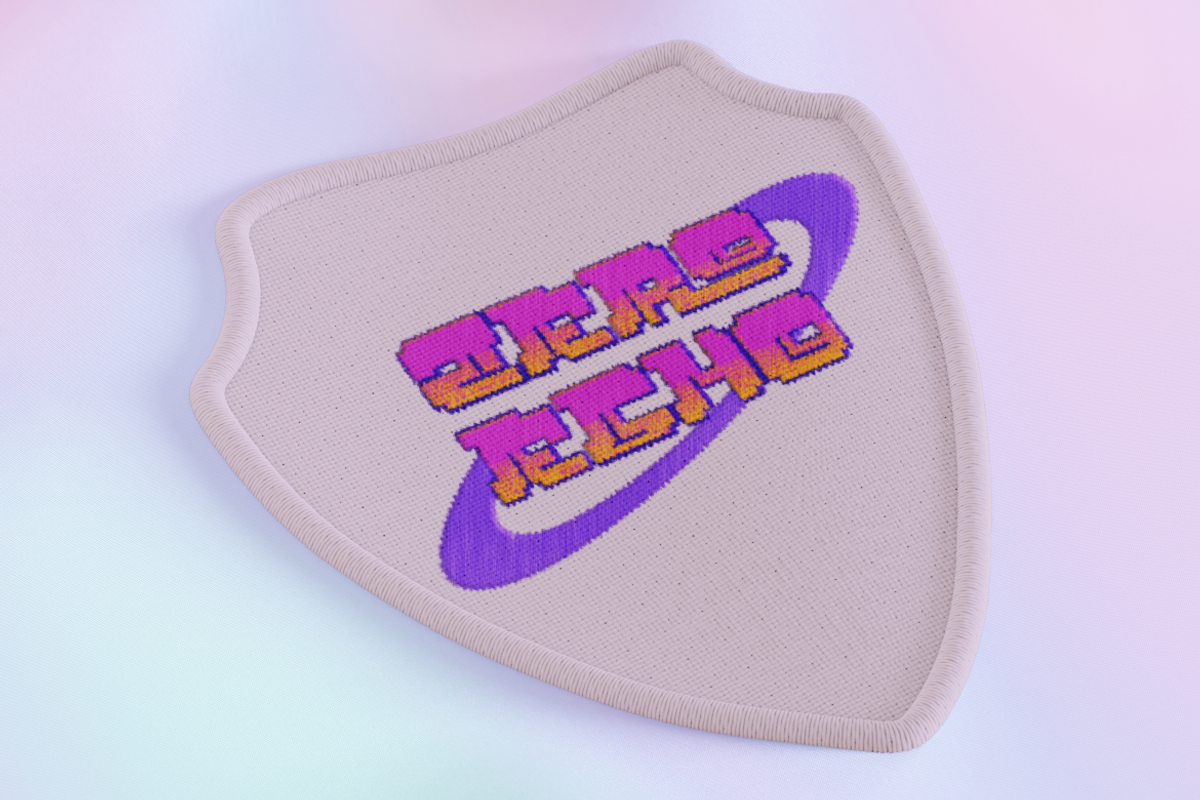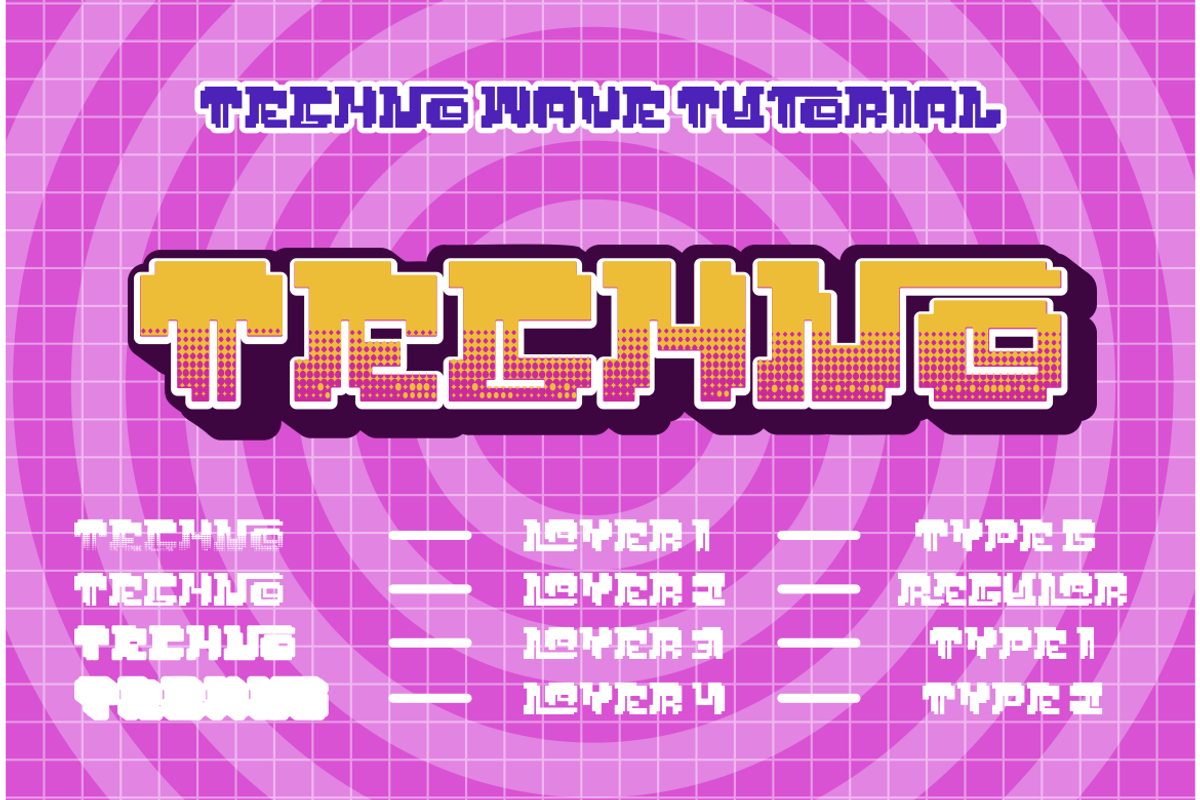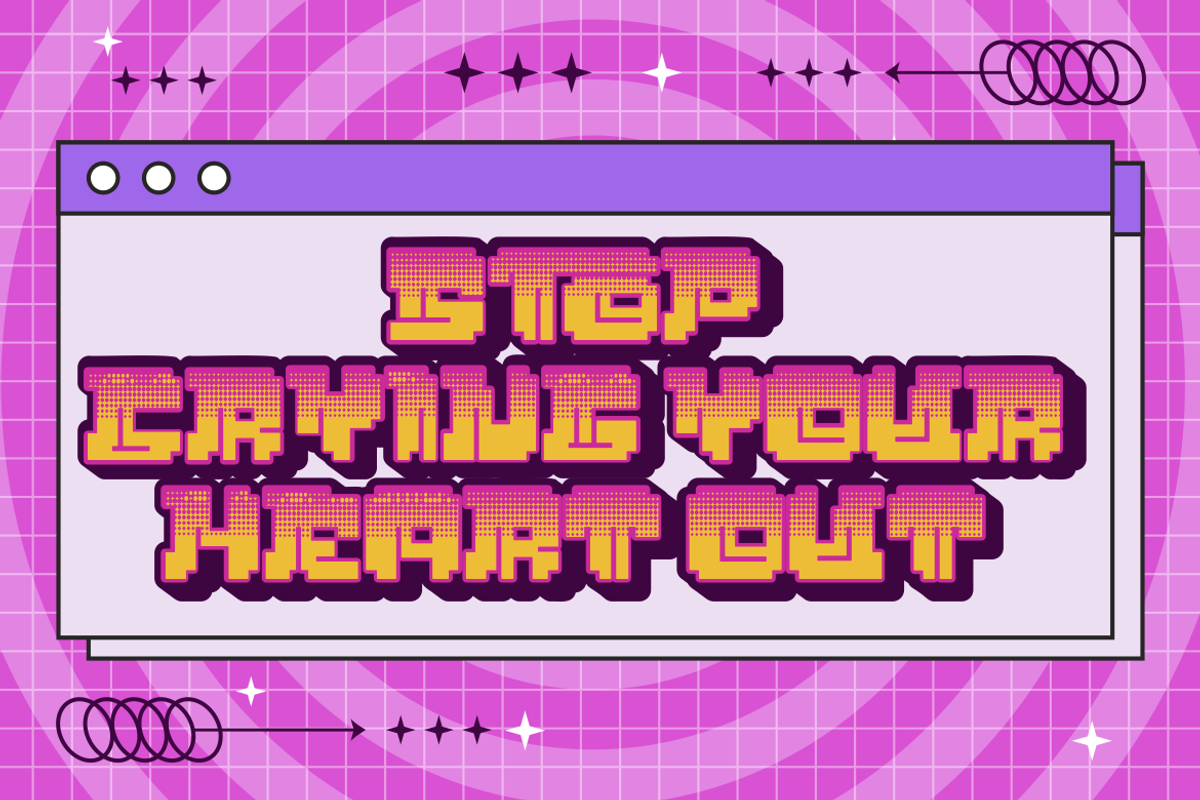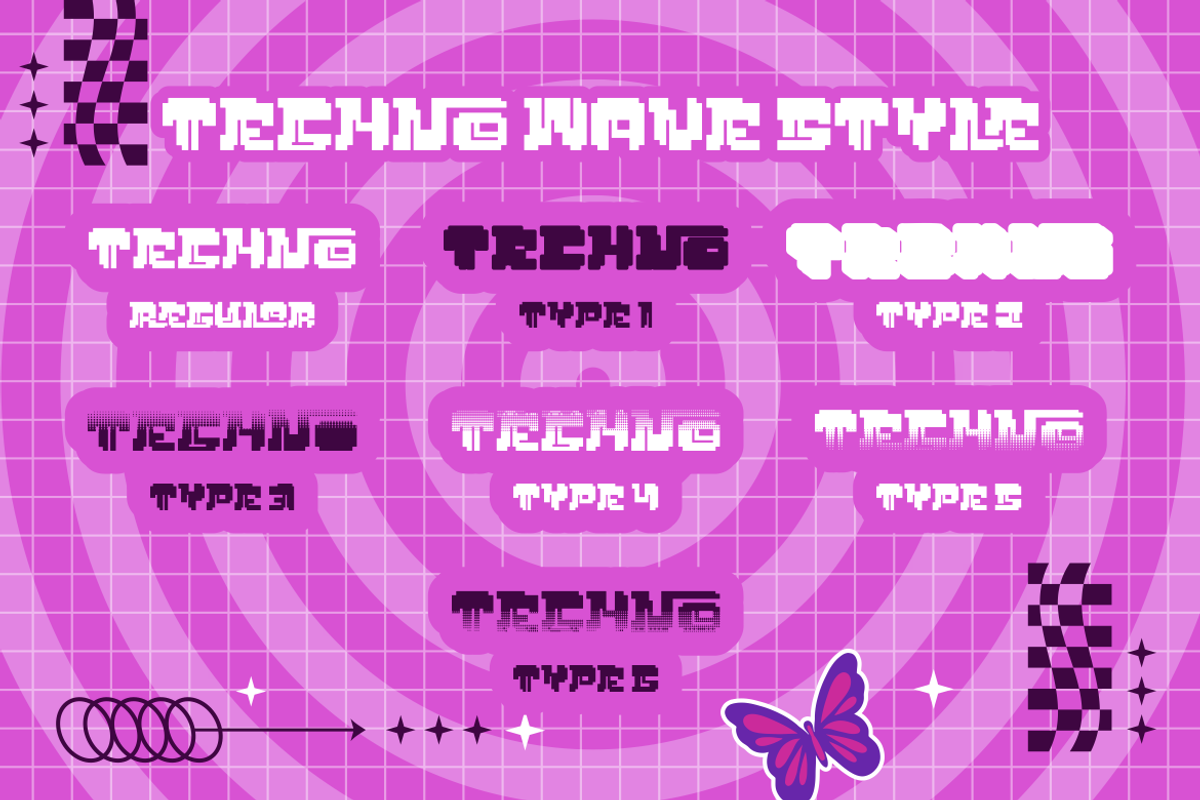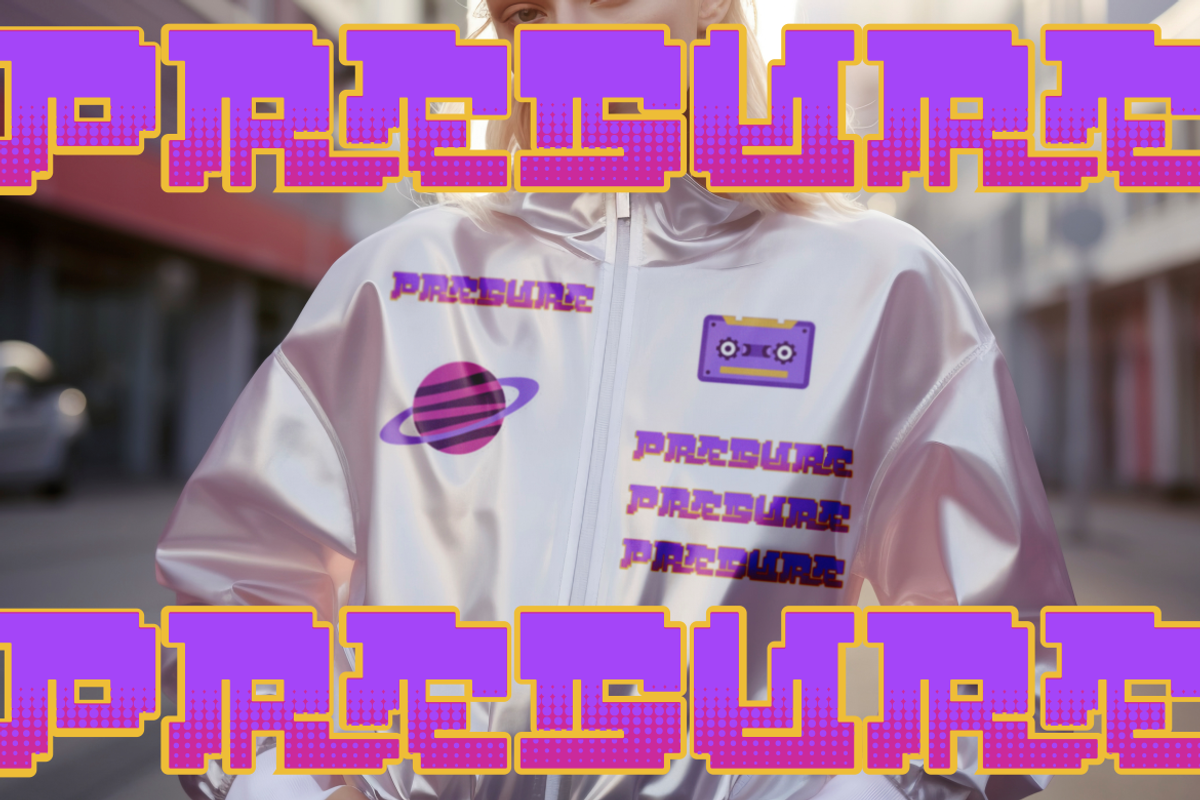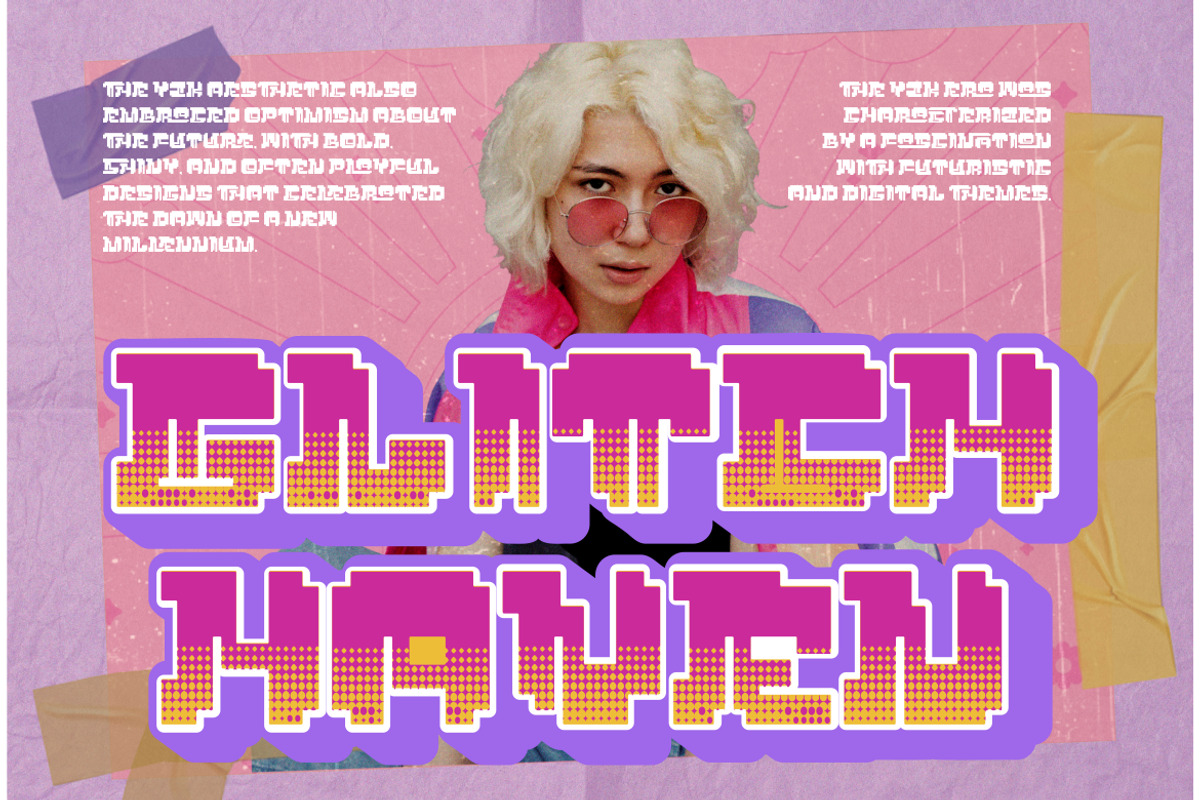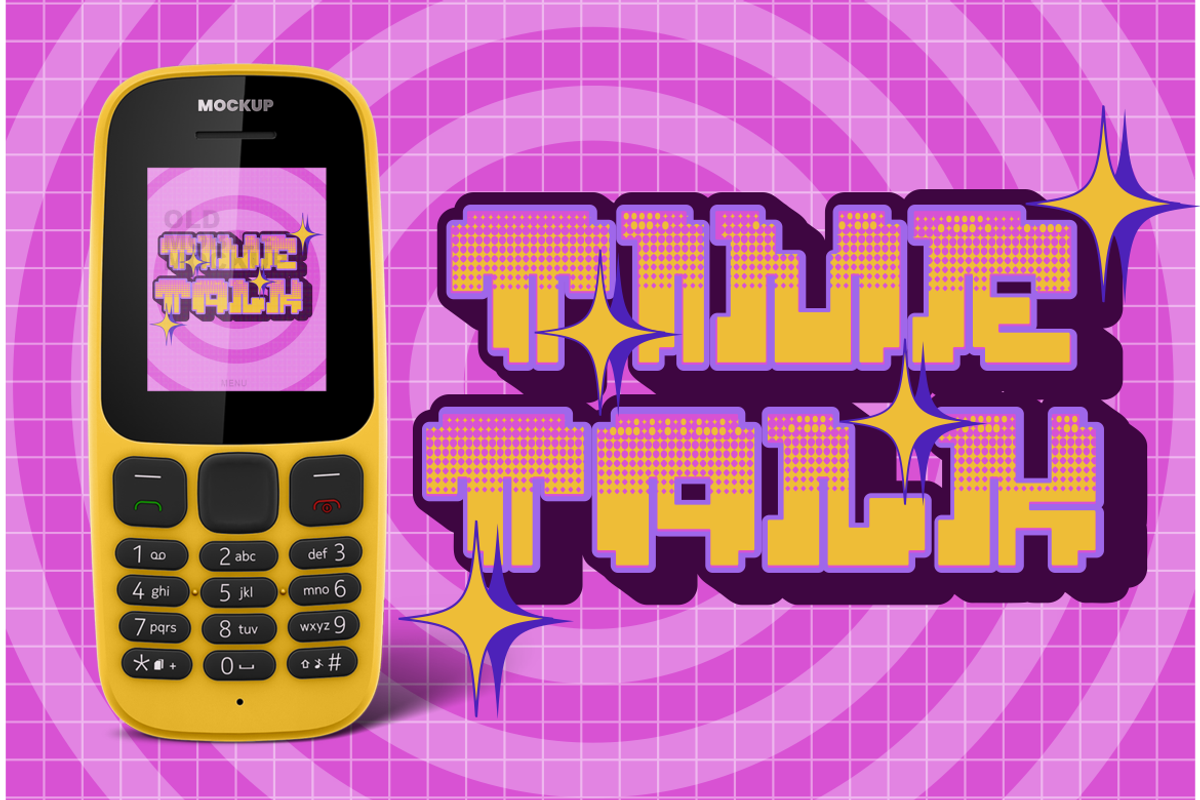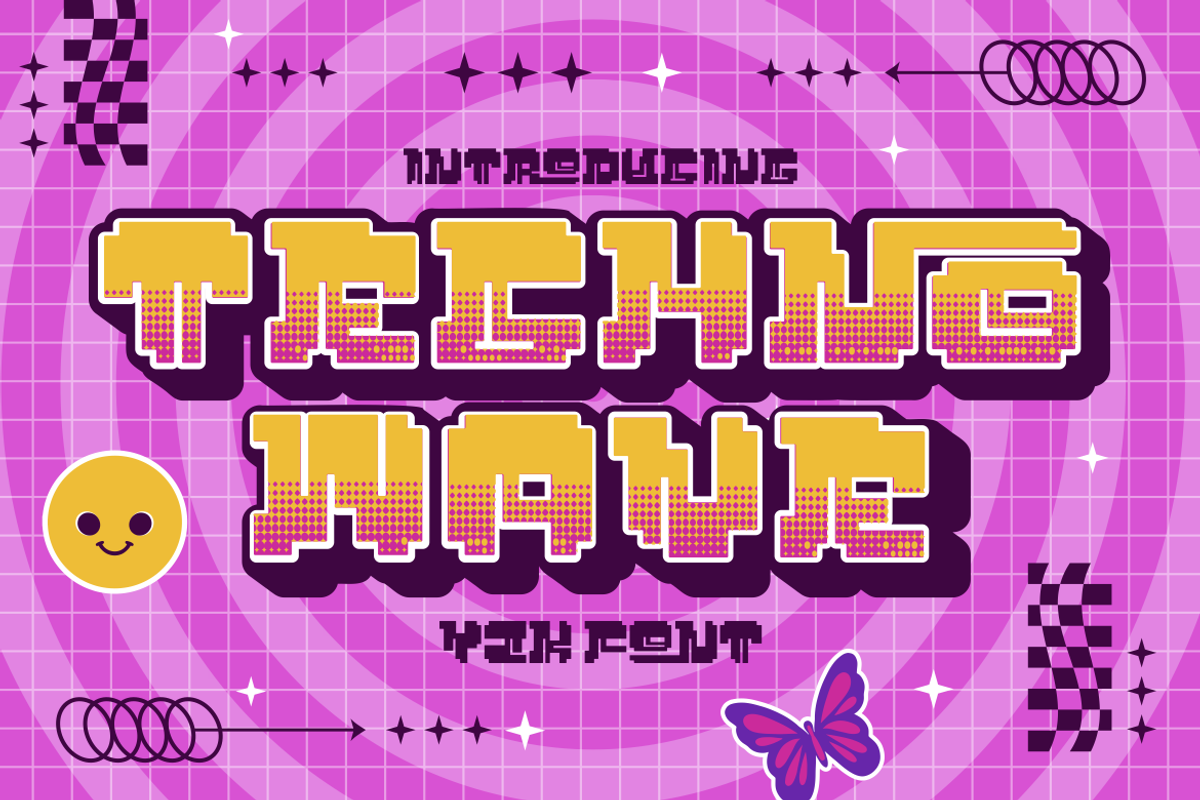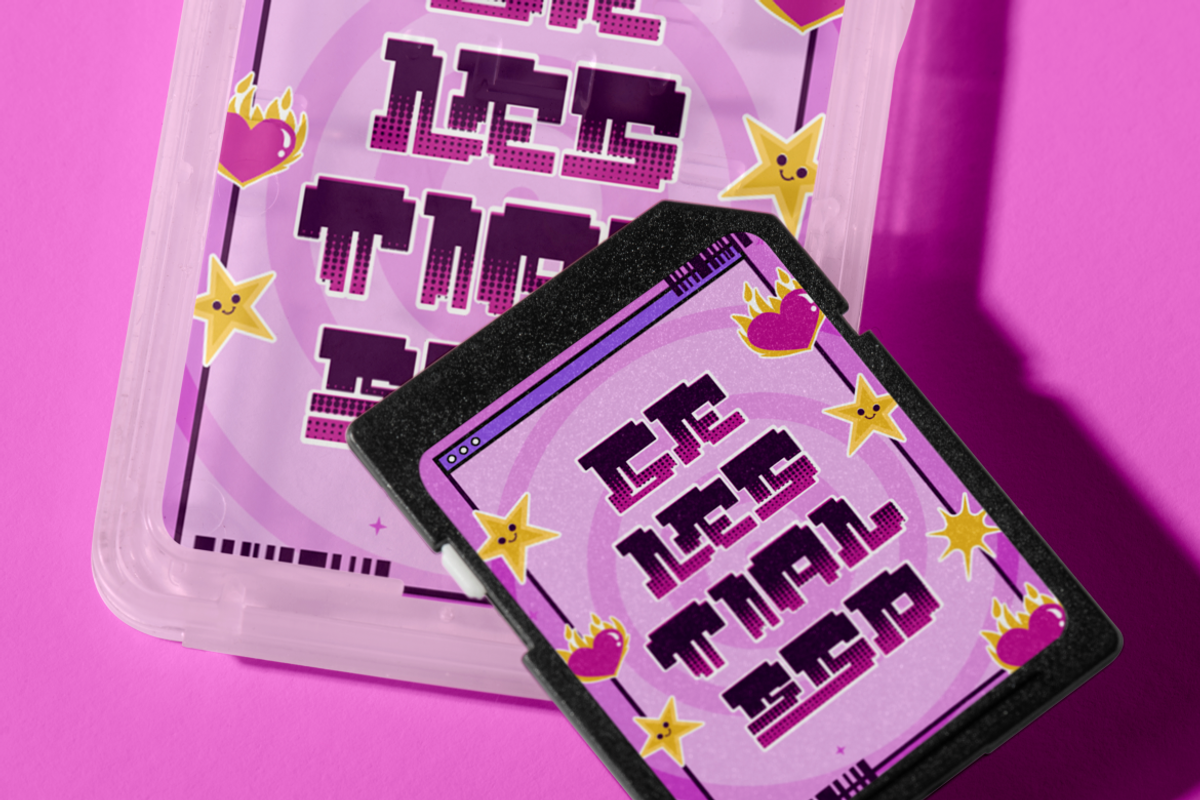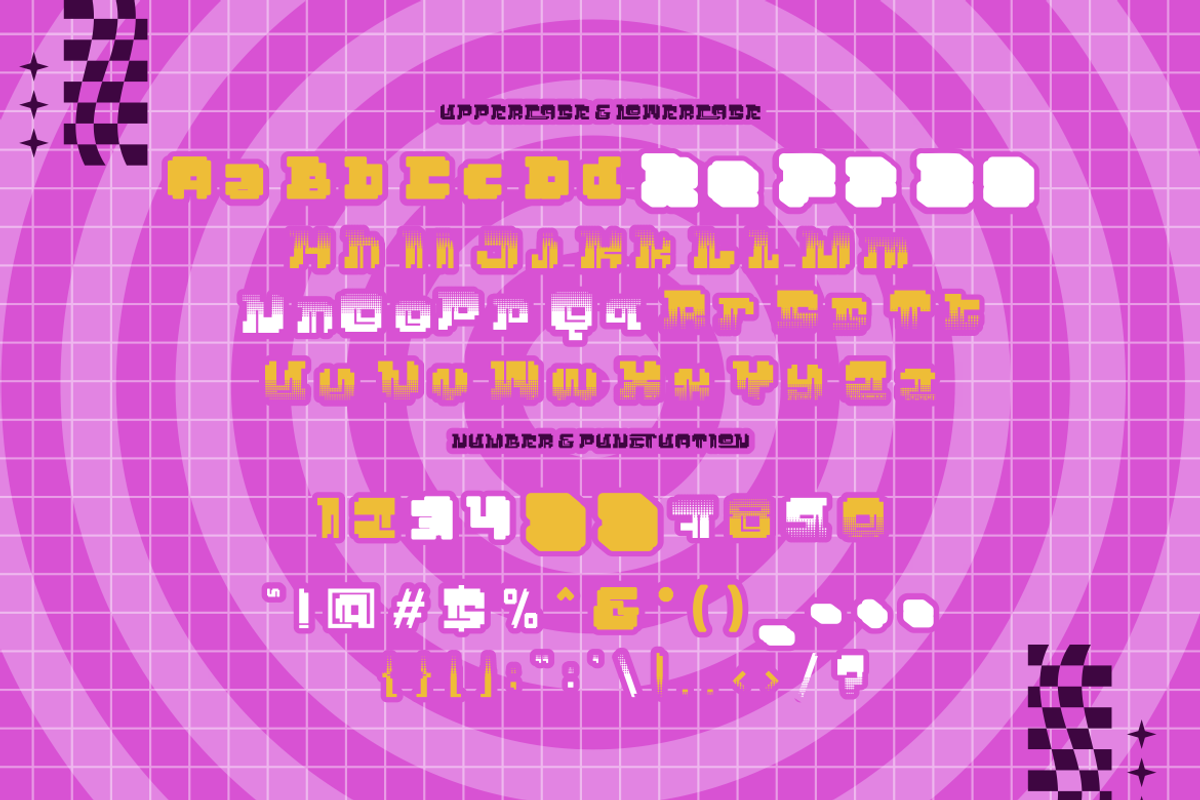
Techno Wave - Y2k Style Font
Introducing Techno Wave, a bold and futuristic Y2K-style font designed to capture the essence of early 2000s digital culture. Inspired by retro-futuristic aesthetics, this pixelated, techno-inspired typeface brings a modern twist to vintage sci-fi vibes. With its chunky, geometric forms and playful gradients, Techno Wave is perfect for creating standout logos, eye-catching posters, and futuristic branding materials. The pixel style adds a nostalgic feel while remaining fresh and relevant in today’s digital age, making it a go-to choice for projects that aim to evoke a sense of innovation and creativity.
Techno Wave’s versatile design lends itself to a wide range of uses, from tech-driven projects like apps and video games to bold packaging, event flyers, and more. It is an excellent choice for adding a futuristic touch to your designs, whether for a film title, website, or craft project. The font’s grid-like structure and retro-futuristic energy make it ideal for anyone looking to tap into Y2K-inspired design trends while maintaining a modern edge. Get ready to make your designs pop with Techno Wave!